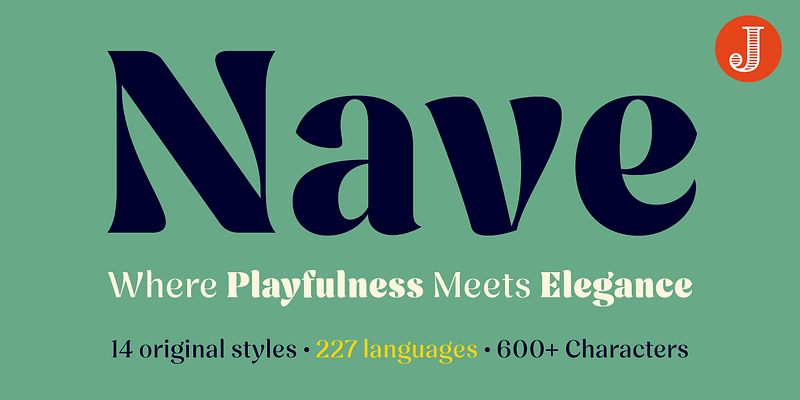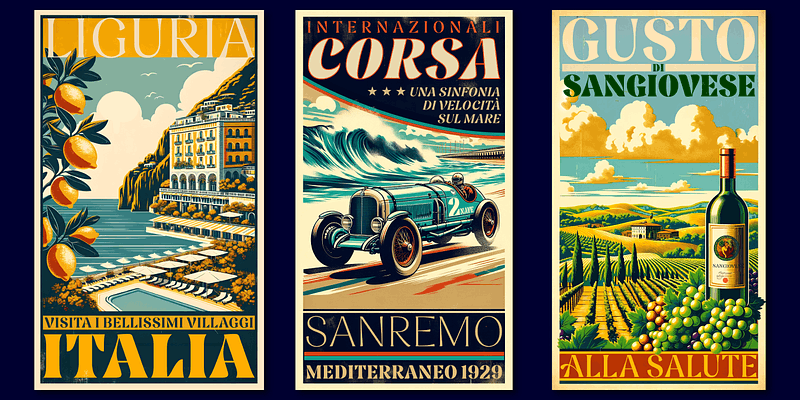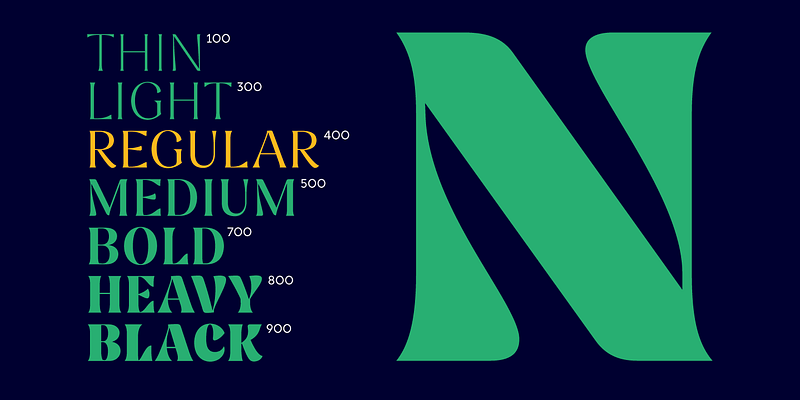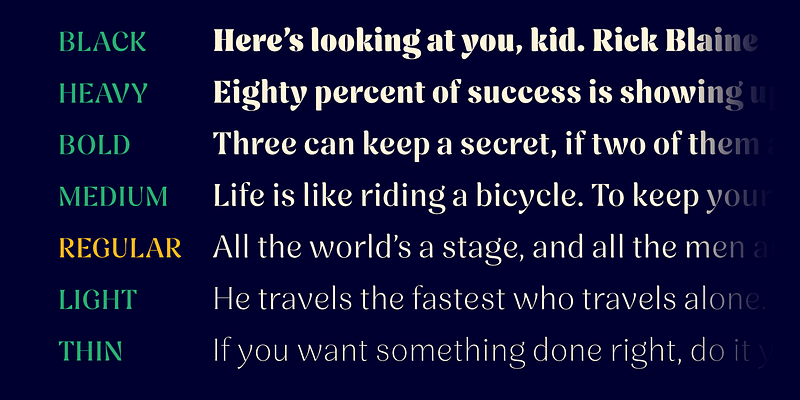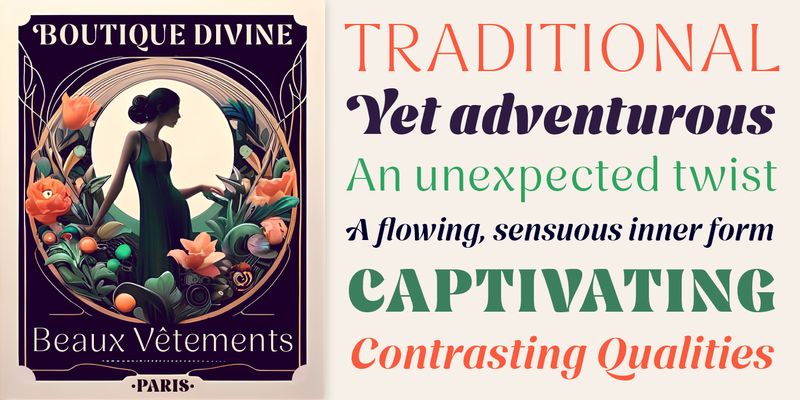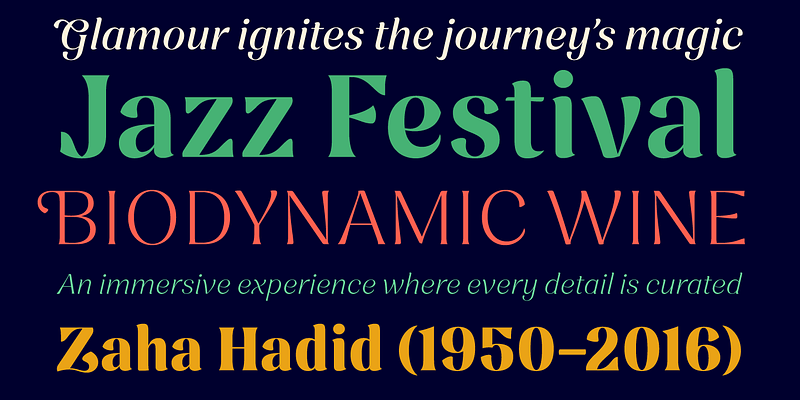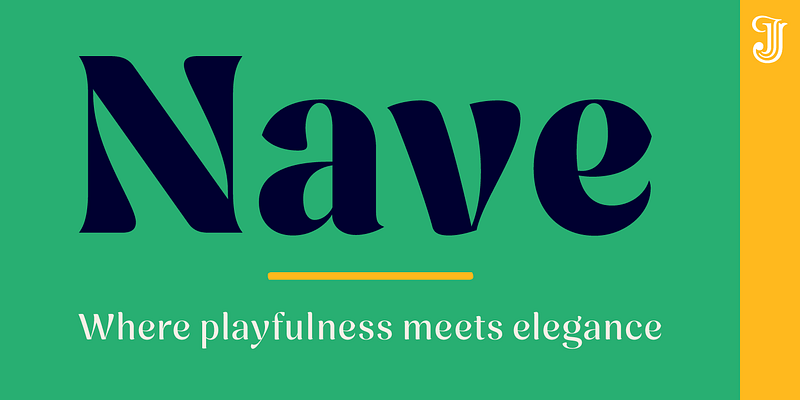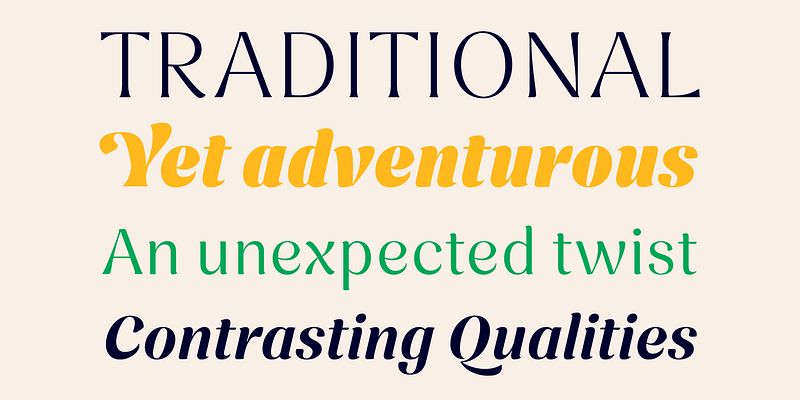
Nave is the perfect choice for designers looking to intertwine tradition with creativity. Its characters are framed by a formal, rigid outer shape, revealing an unexpected twist: a flowing, sensuous inner form. These contrasting qualities breathe life into words, inviting readers on a journey from the familiar to the extraordinary.
Nave is designed for forward-thinking designers and businesses who value classic design but also want to infuse their work with personality and warmth.